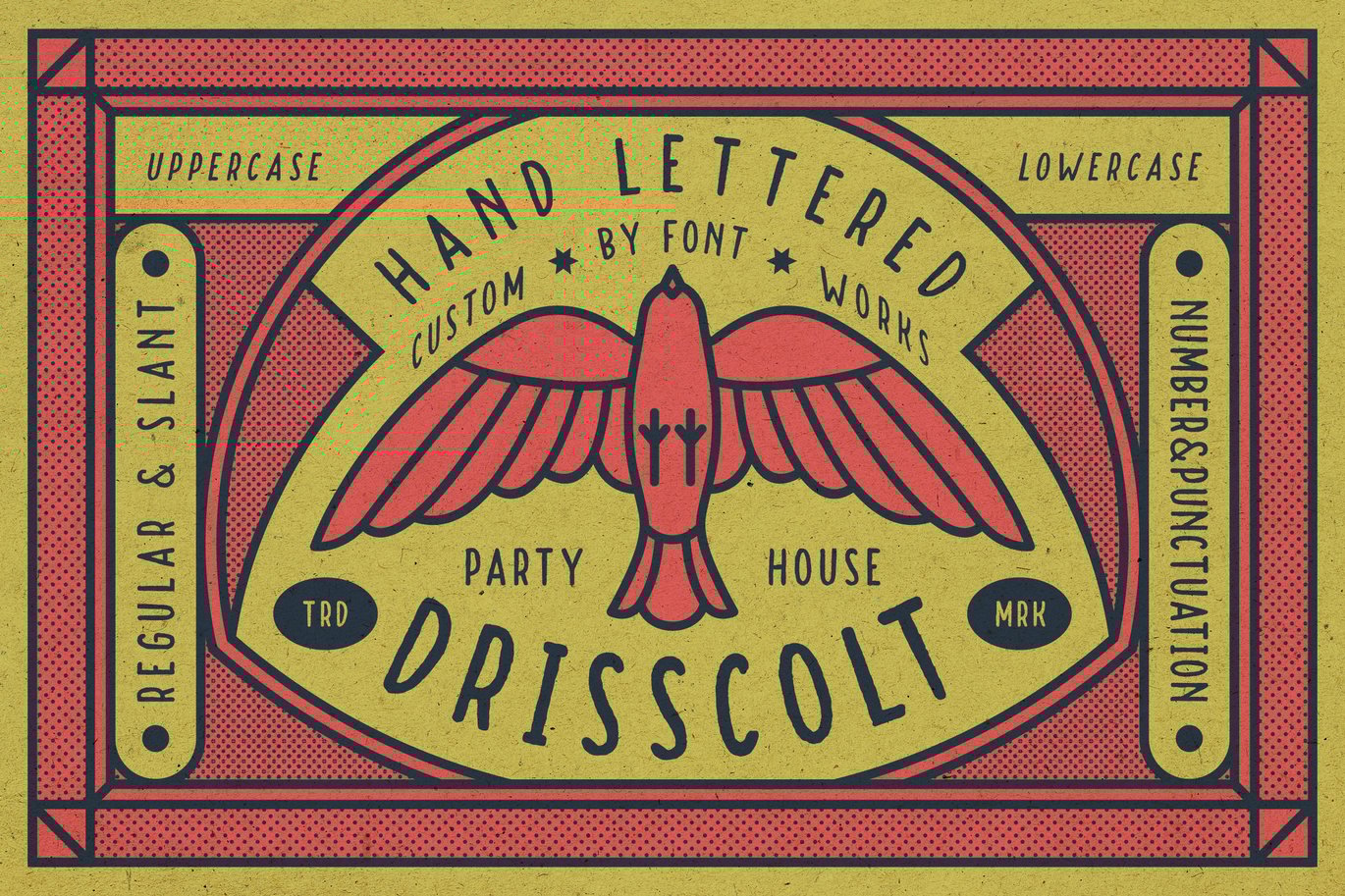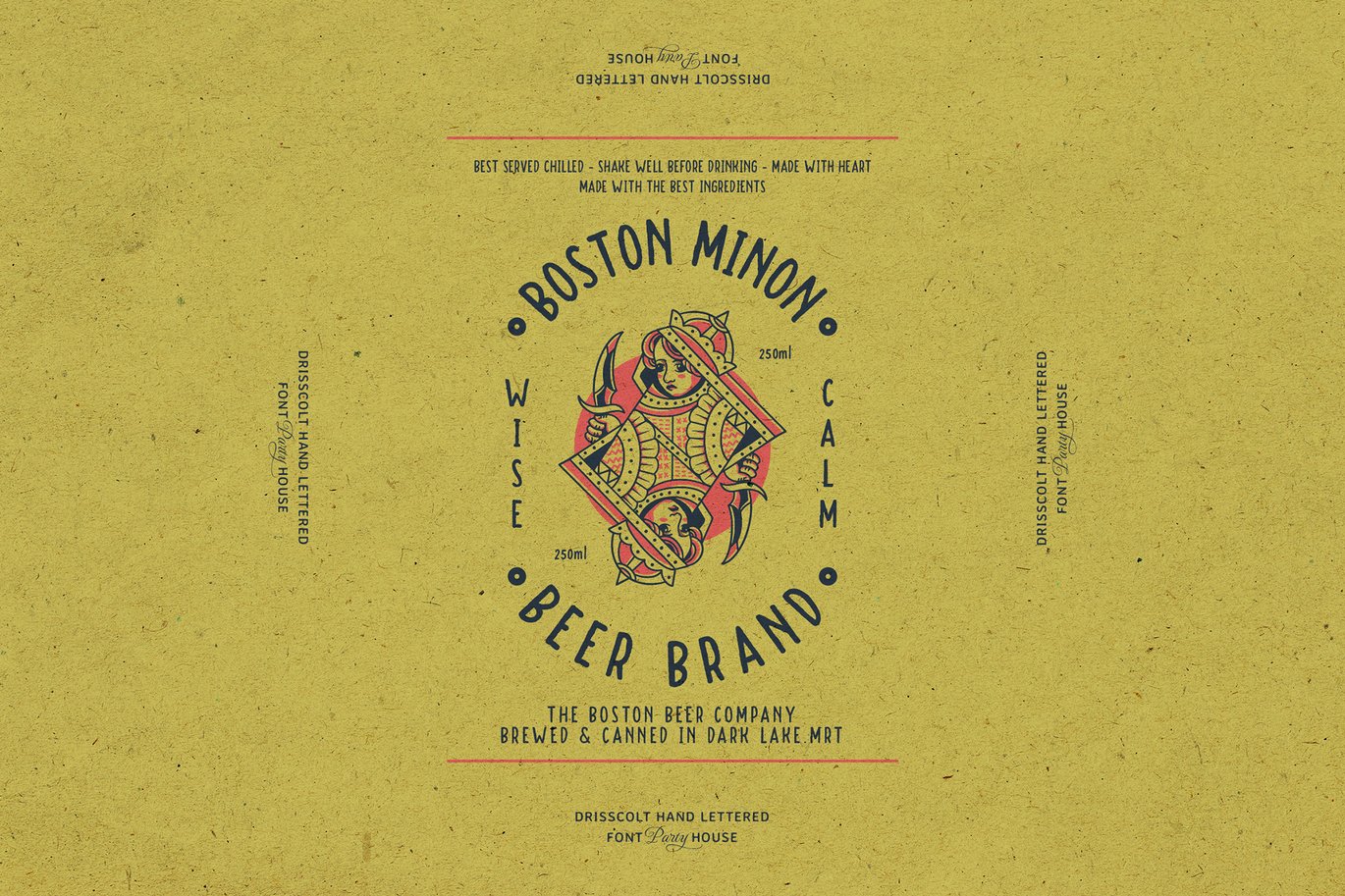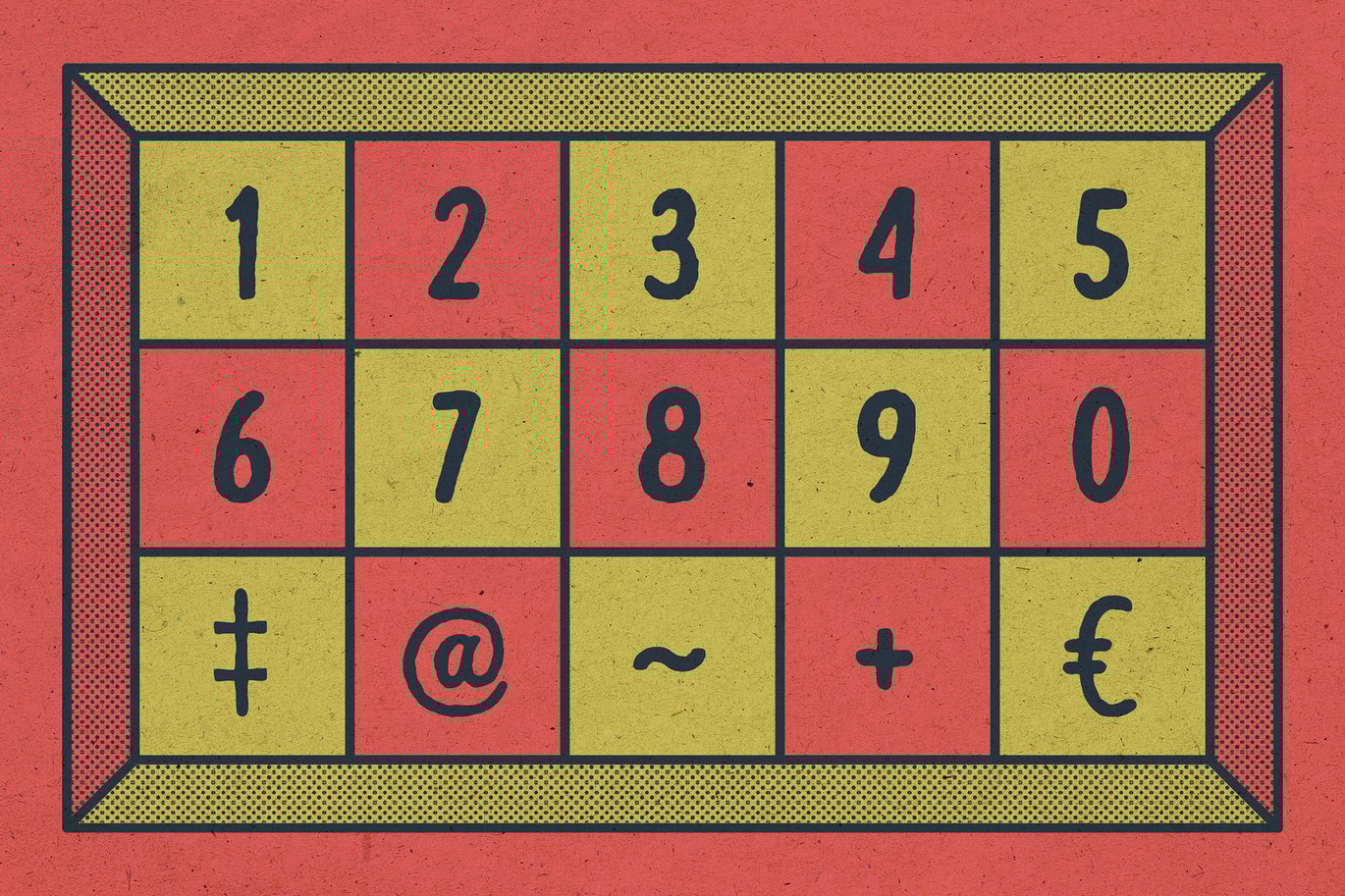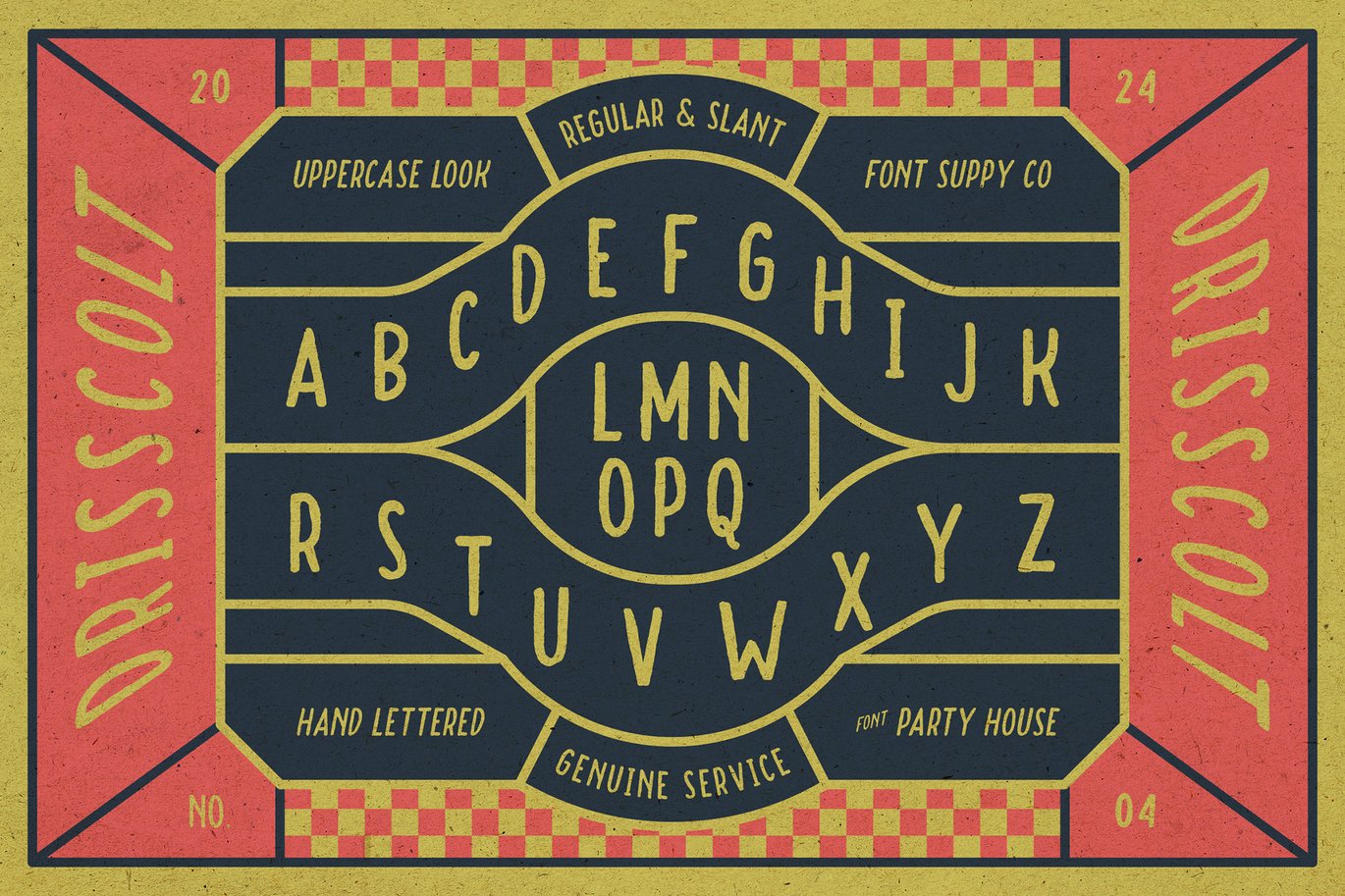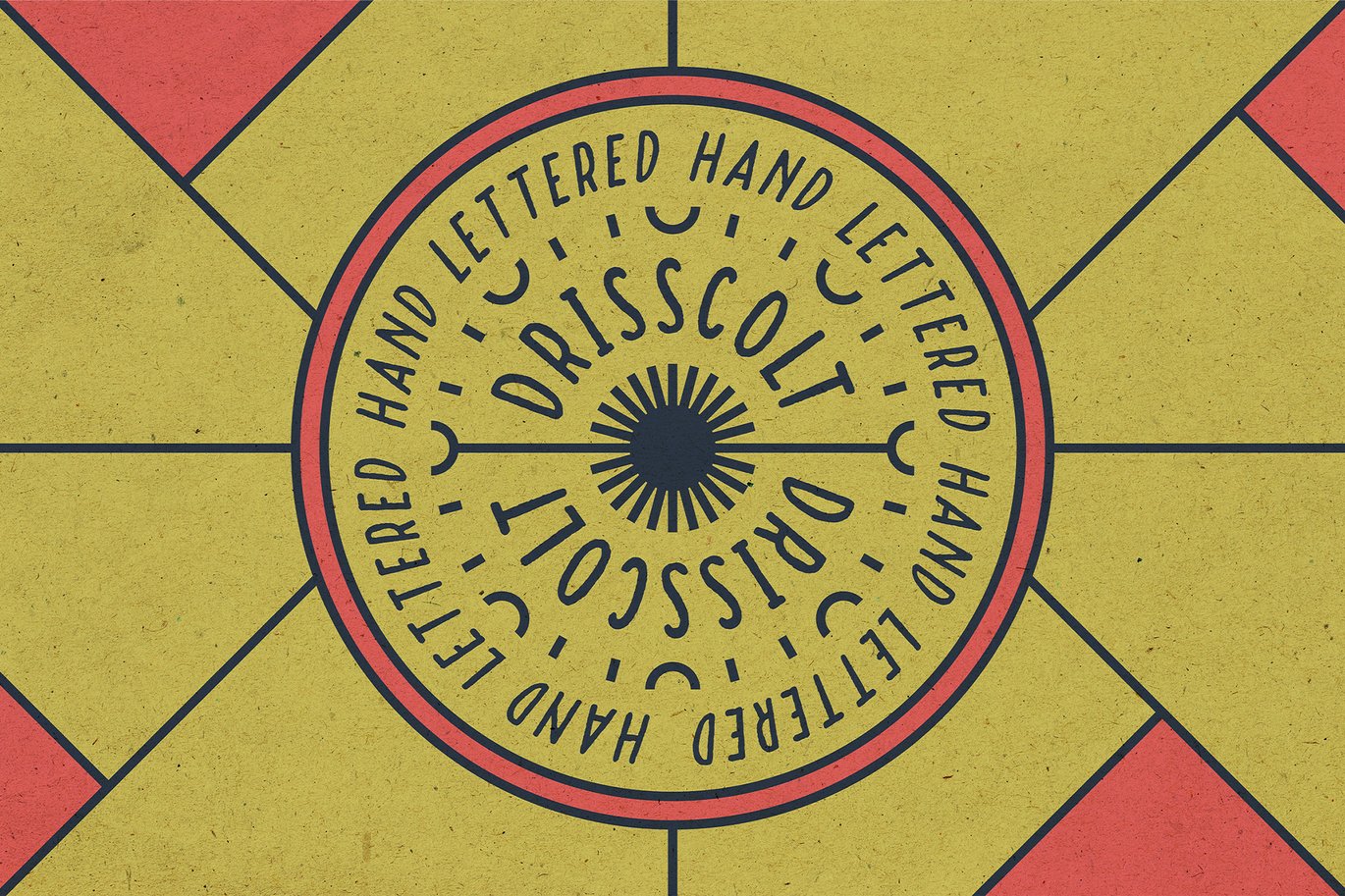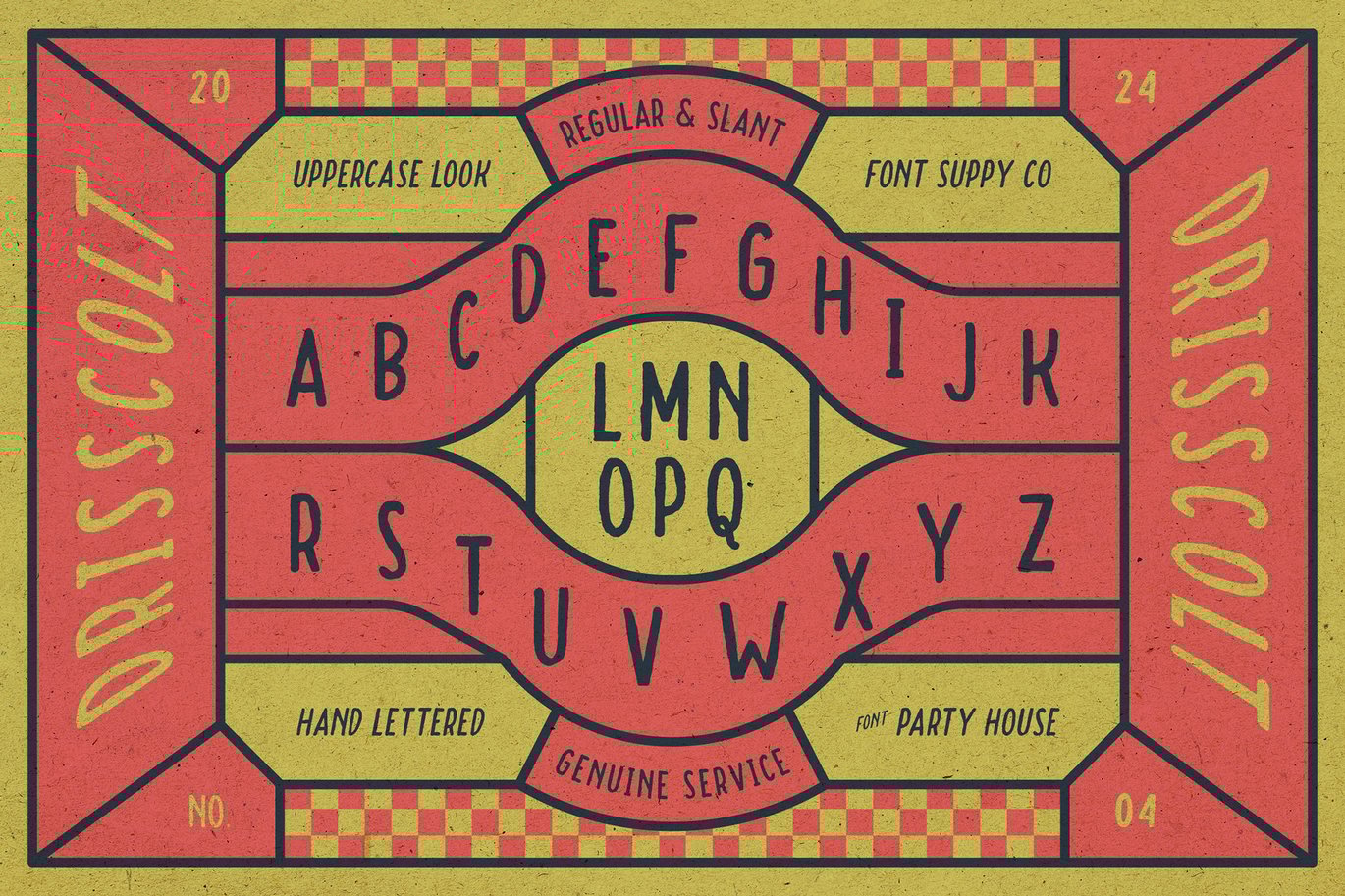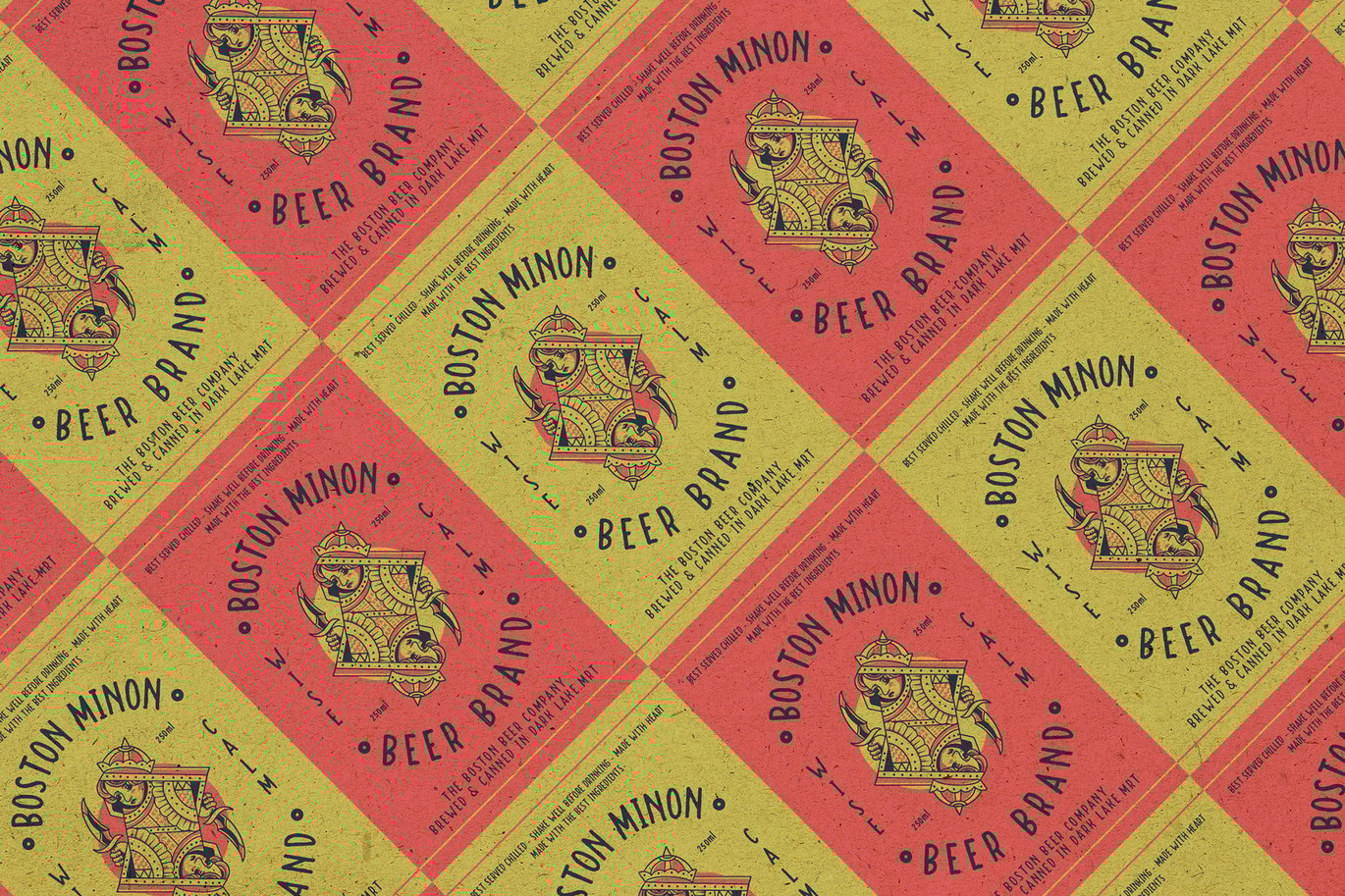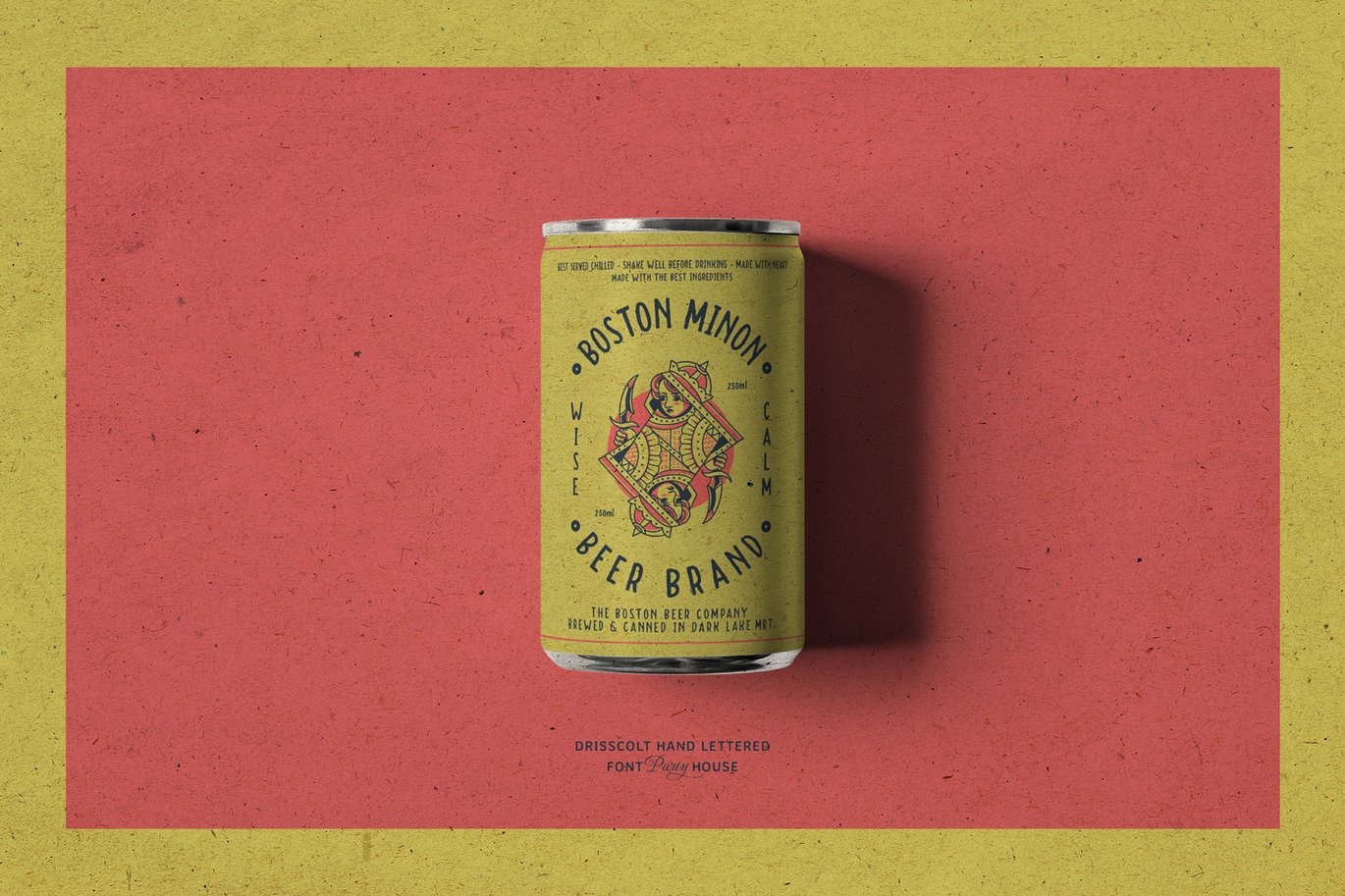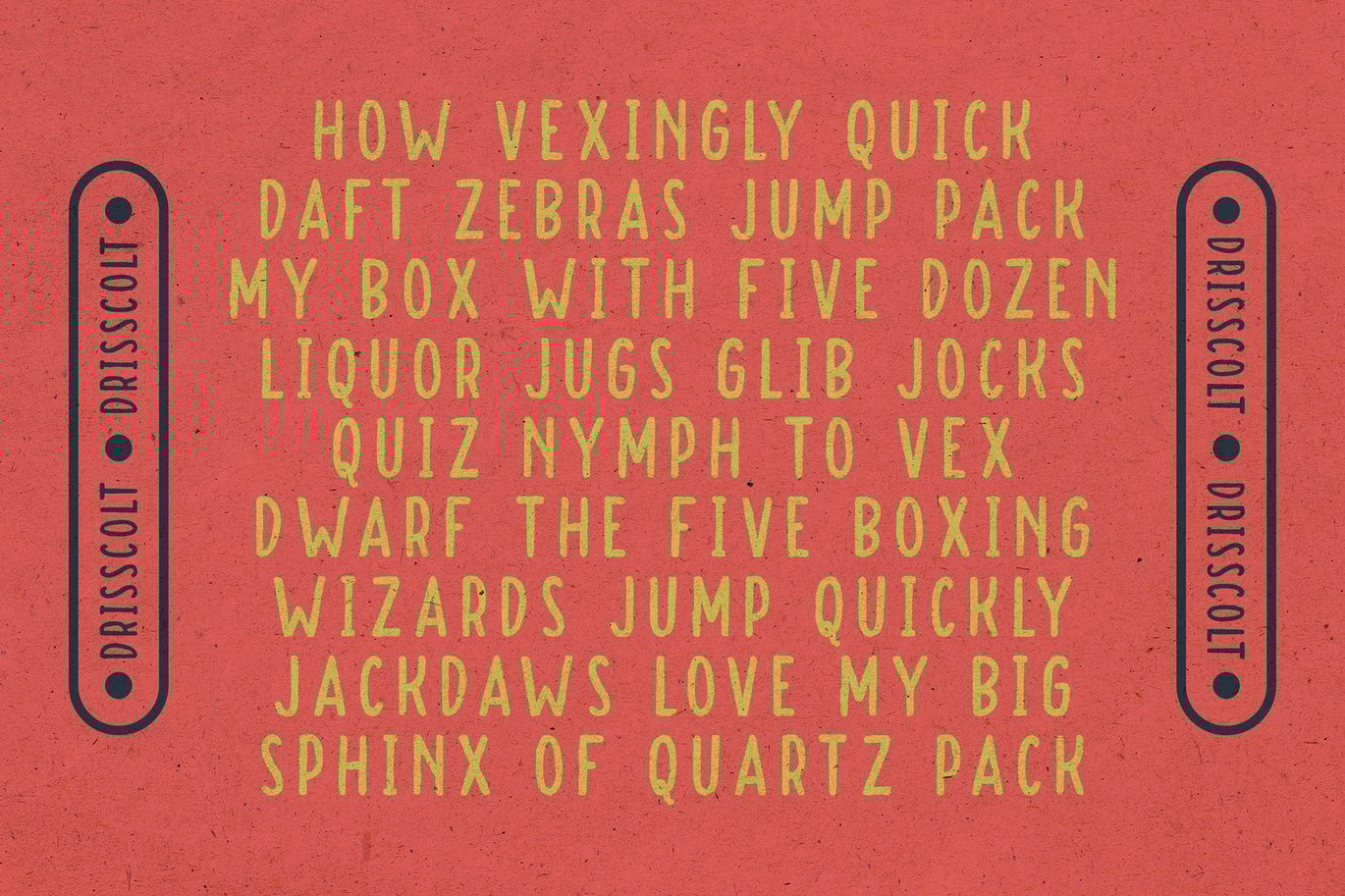
Drisscolt – Hand Lettered Font
Drisscolt Hand Lettered font is inspired by vintage designs with rough lines. Make the classic impression of this font stand out more. It is suitable for creating vintage designs such as logo posters, merchandise, clothing, brochures, business cards and others.